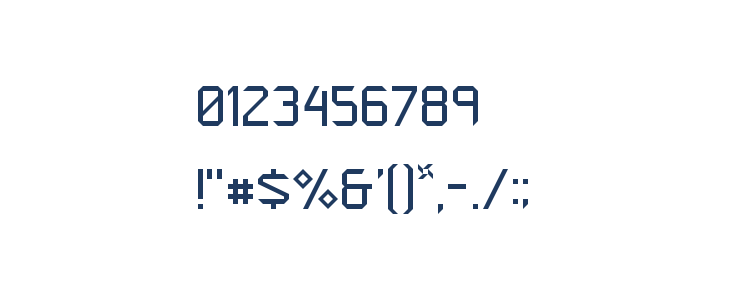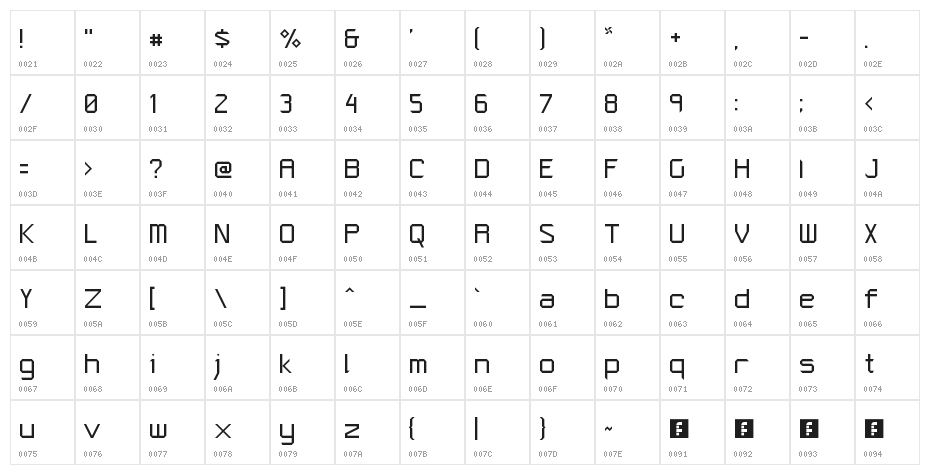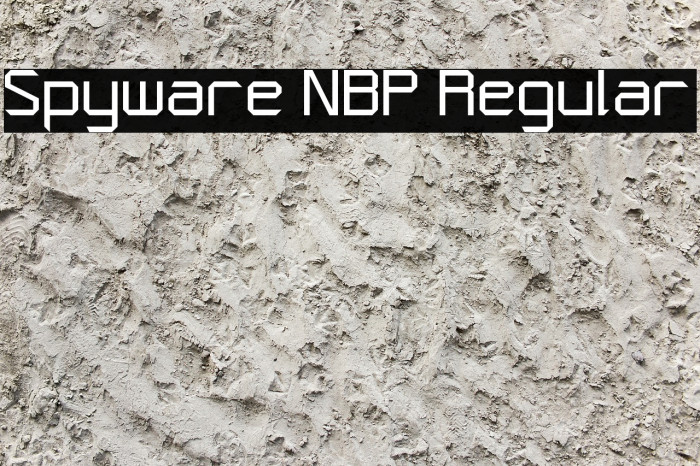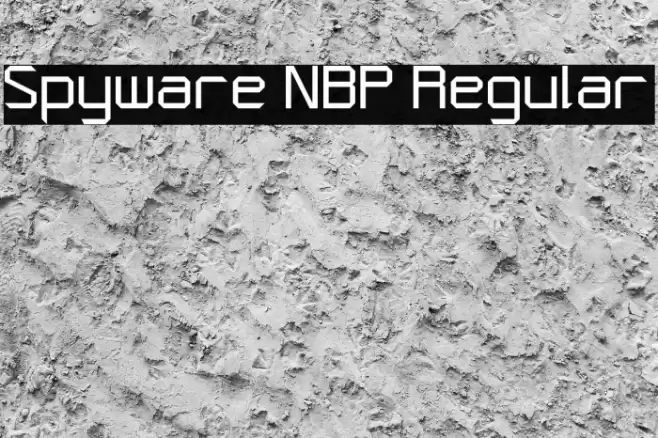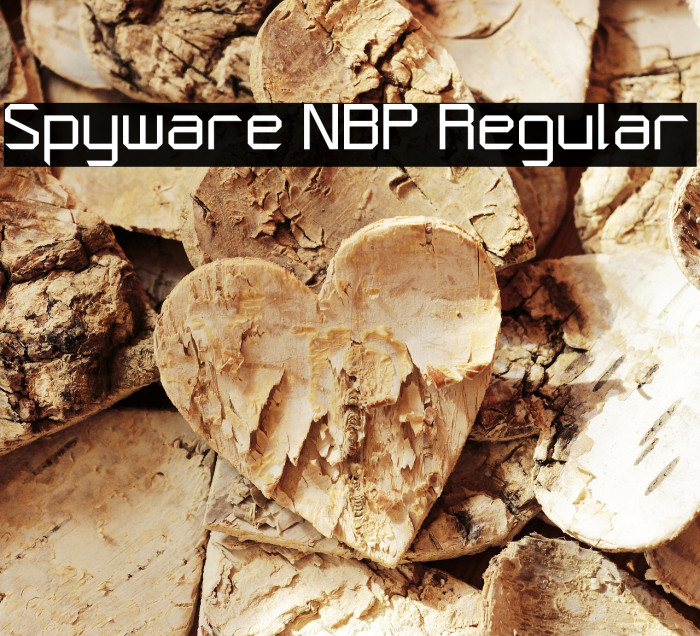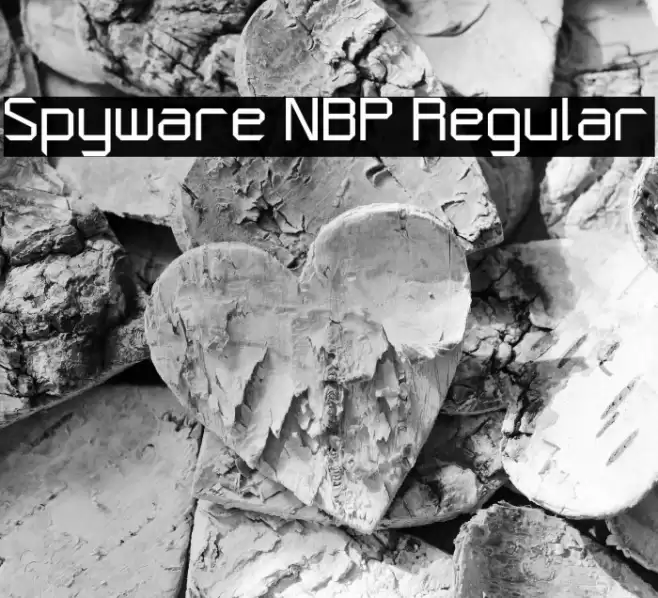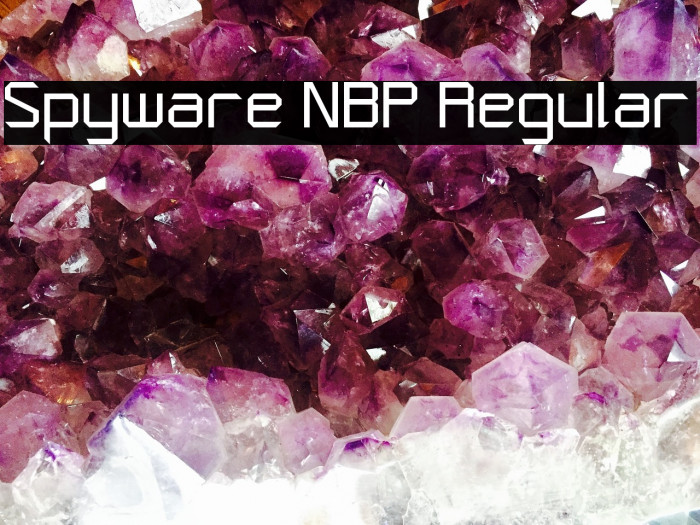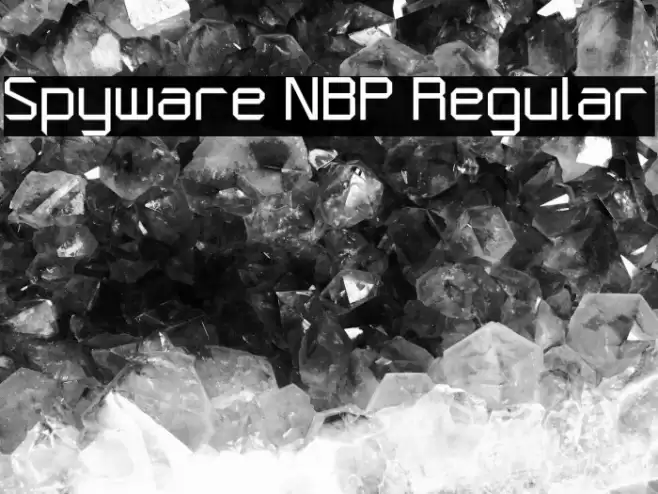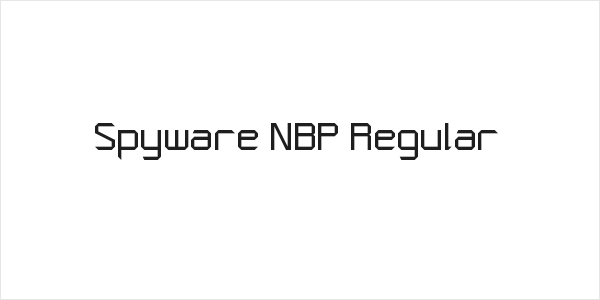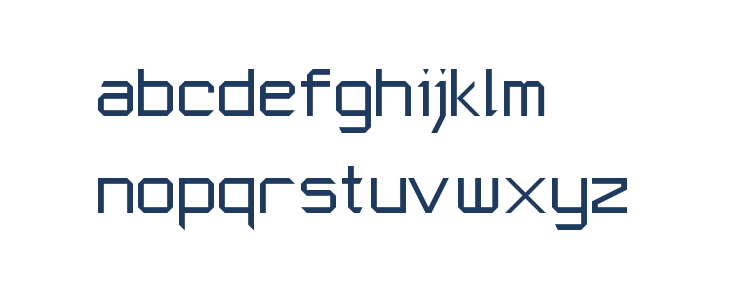
Spyware NBP Regular Font
Spyware NBP Regular Description
This font features a geometric and angular design, characterized by its sharp edges and futuristic appearance. The uppercase and lowercase letters maintain a consistent structure, with straight lines and minimal curves, giving it a digital or tech-inspired look. The numbers and special characters follow the same design principles, ensuring uniformity across all glyphs. The font's style is reminiscent of digital displays or sci-fi themes, making it ideal for projects that require a modern and edgy aesthetic. Its unique design makes it stand out, while still maintaining readability.
| Use Case | Logos, Headlines, Digital displays |
| Proposed Projects | Ideal for tech branding, sci-fi themed projects, video game interfaces, and digital displays. |